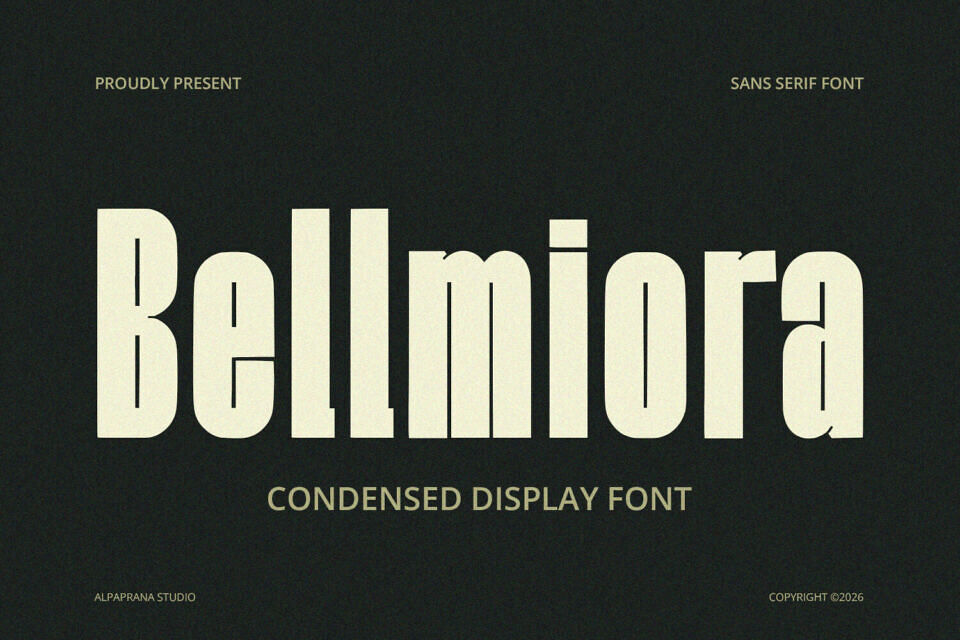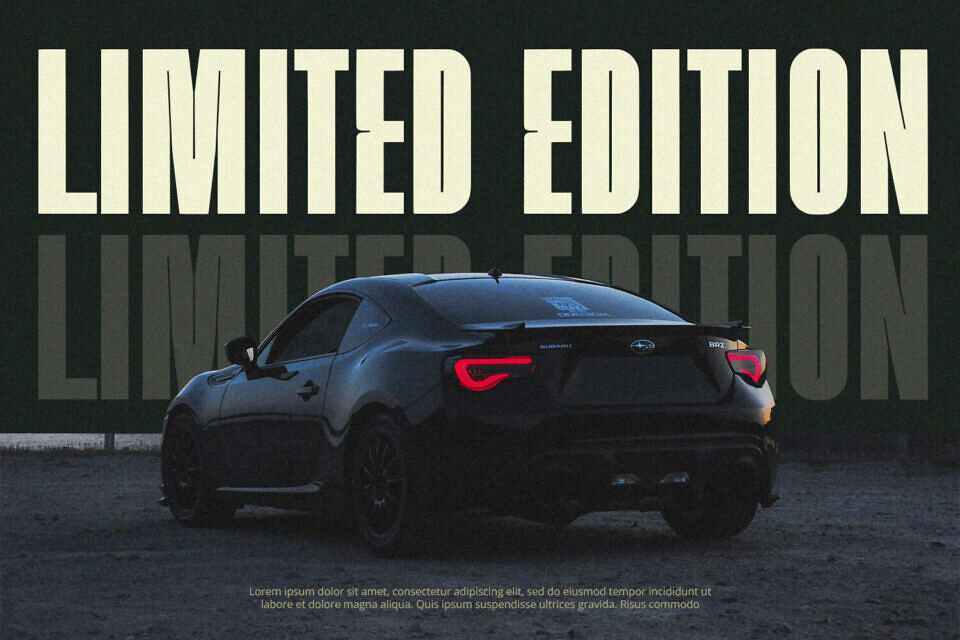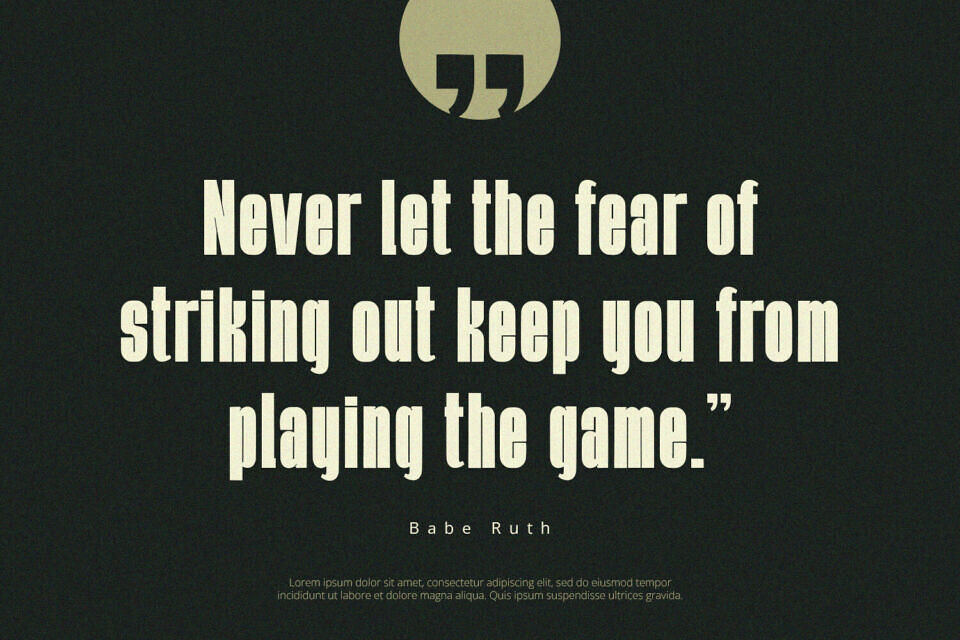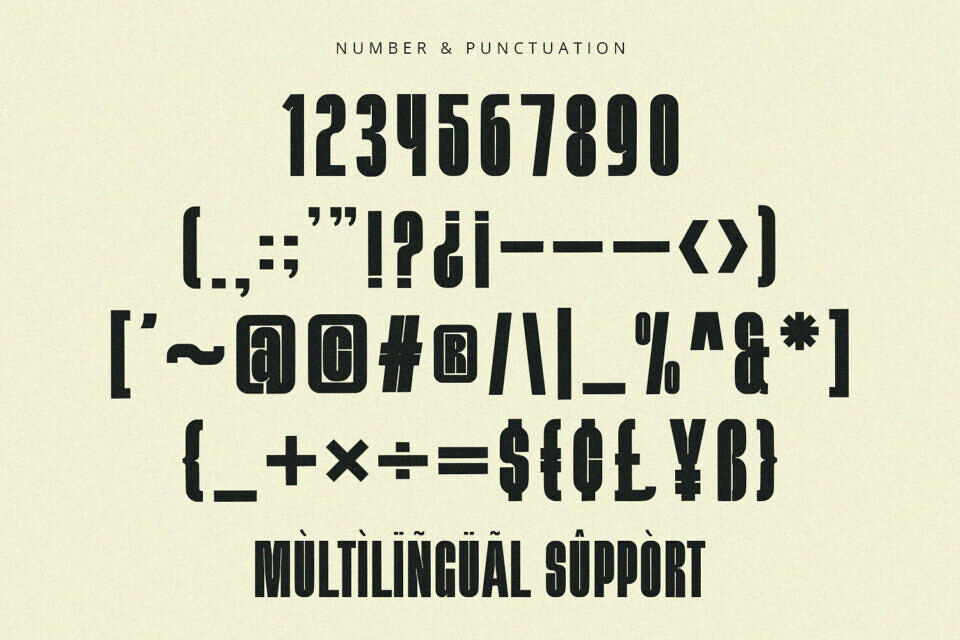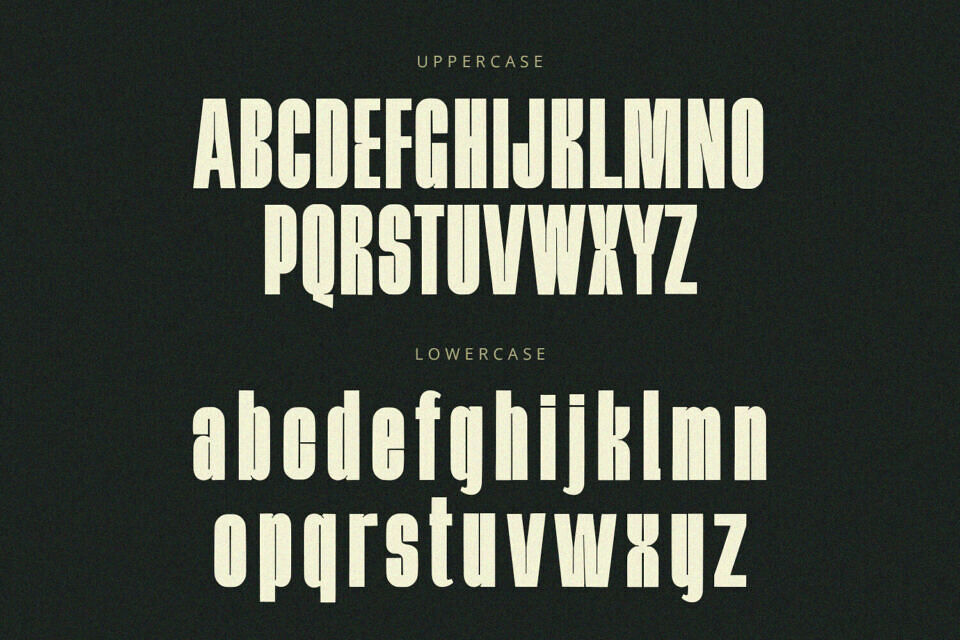
Bellmiora is a powerhouse condensed display font designed for maximum impact in limited spaces. Its heavy weight and tight tracking create a solid, architectural presence, making it an exceptional choice for cinematic movie posters, bold sports branding, impactful editorial headlines, and modern street-wear logos.
Whether you are designing a high-energy advertisement or a sleek corporate identity, Bellmiora delivers a sense of strength, authority, and contemporary precision to every word.